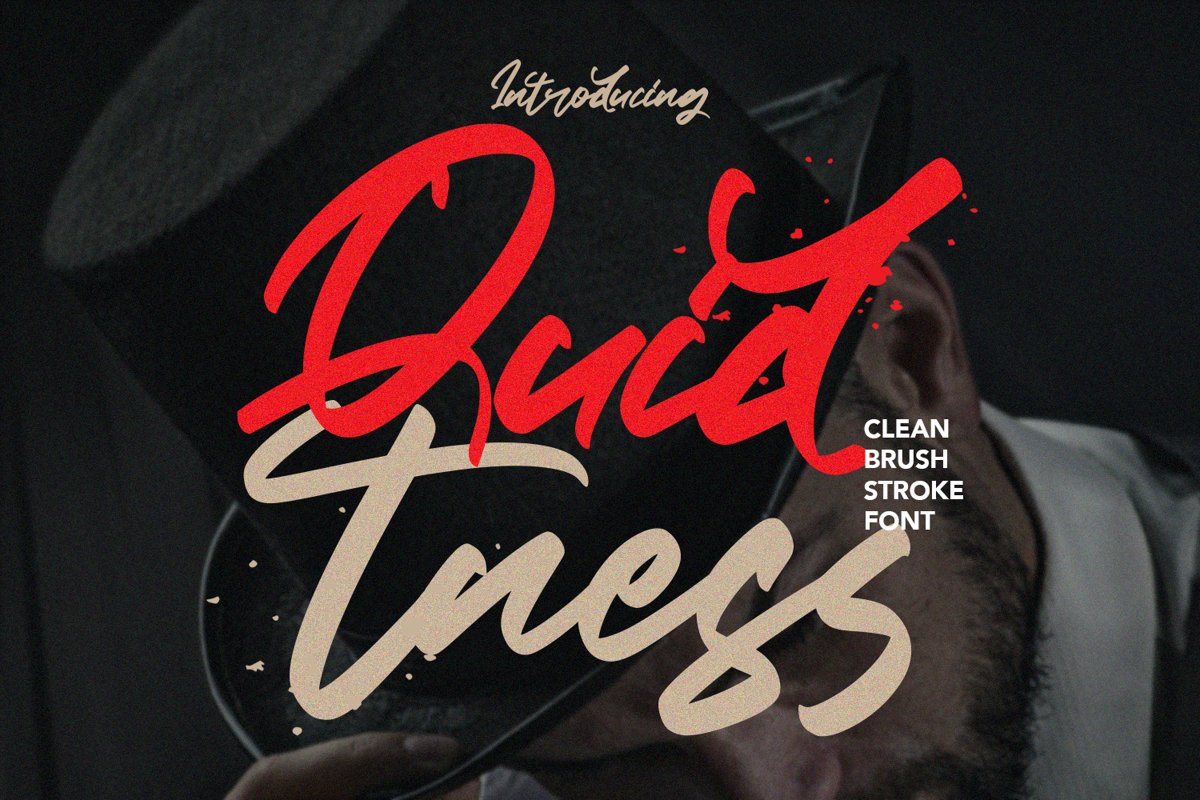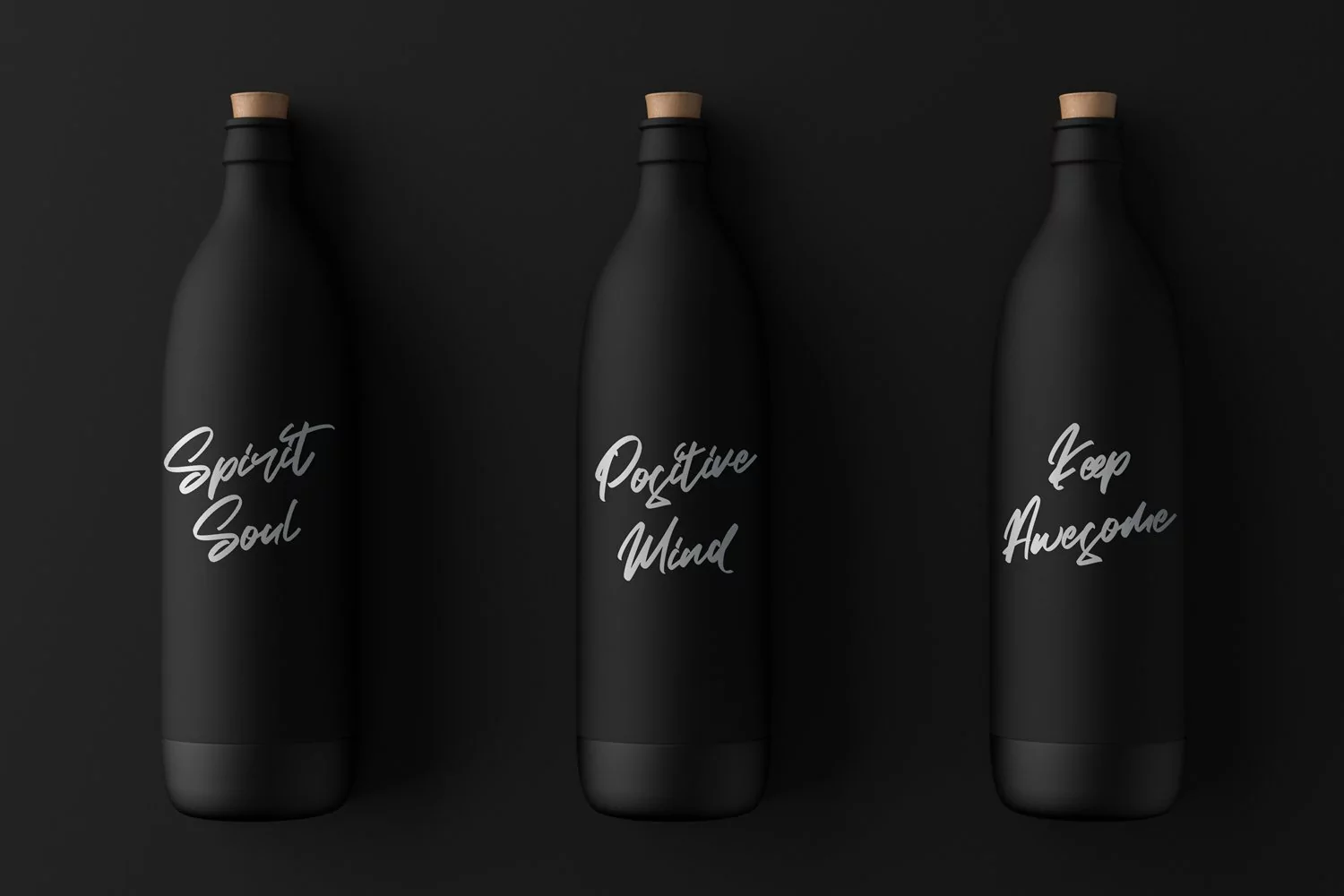
Quidtness - Clean Brush Stroke Font that contain lowercase, uppercase, symbol, and also support multi language. There’s a lot ligatures in this font. This Font also comes with ligatures, alternates and many more. this font suitable for fashion, branding, catalog and other design what you want.
Quidntess